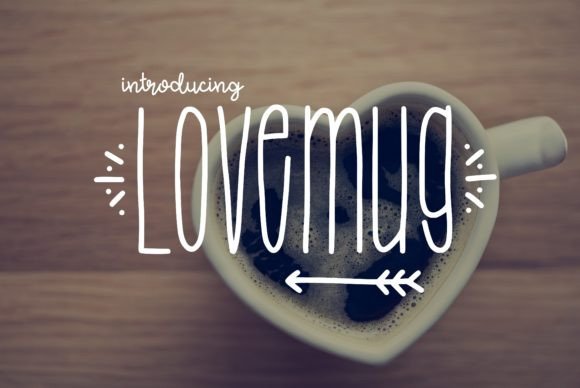
Attention all designers and font enthusiasts! Get ready to fall in love with the latest addition to your font collection. Introducing Lovemug Font, the best font for love letters!
This playful sans-serif font is the perfect choice for anyone looking to add some fun and flirty flair to their designs. Created by Kitaleigh LLC, Lovemug Font is sure to capture your heart with its unique, tall lettering and charming doodles.
Whether you're designing invitations, greeting cards, logos, or anything in between, Lovemug Font is sure to make a lasting impression. With its bold and expressive style, this font is perfect for adding a touch of personality and charm to any project.
But that's not all! Lovemug Font is also incredibly versatile, making it a great choice for a wide range of design styles and applications. So whether you're going for a romantic, whimsical look or something a bit more modern and edgy, Lovemug Font is the perfect choice.